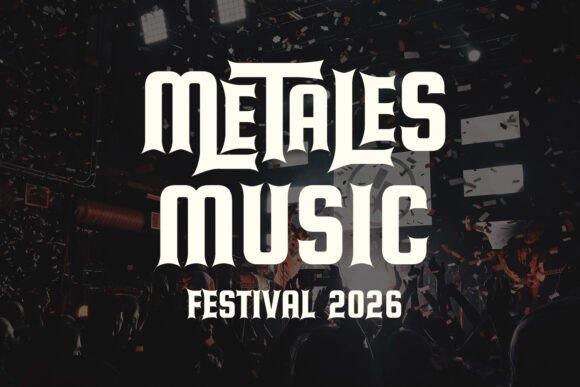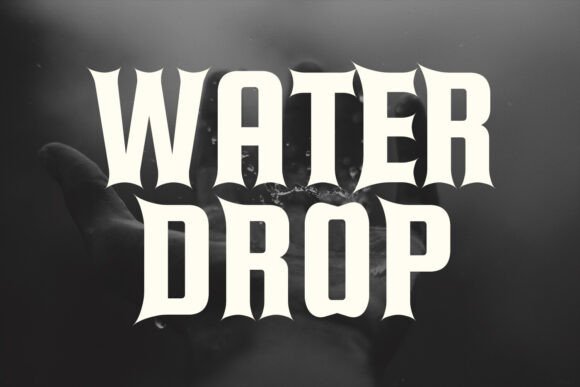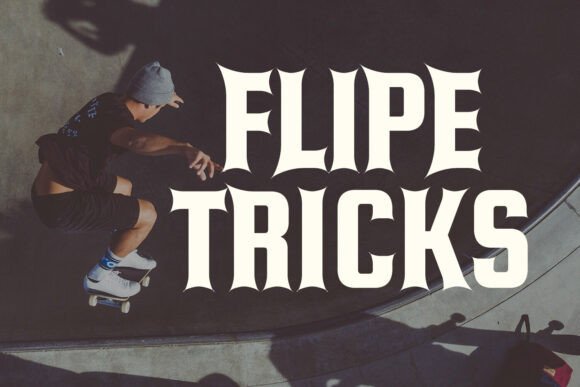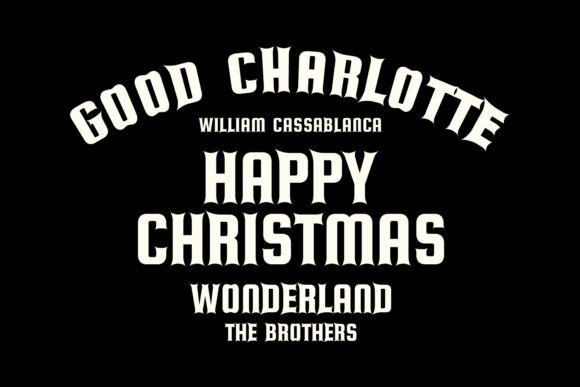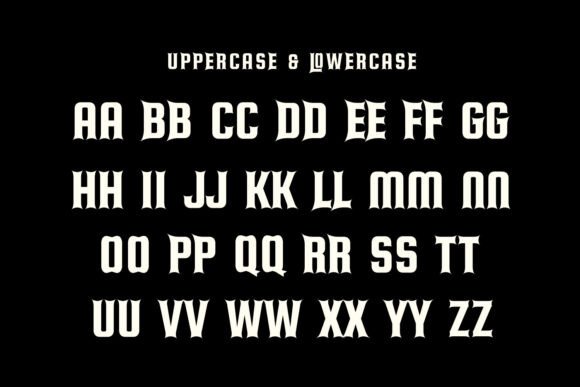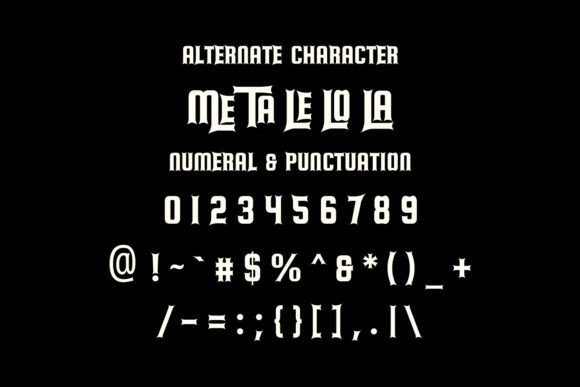
Unleash Your Creativity with Devile Phonk Font: The Ultimate Display Font for Bold Designs
Are you a designer or crafter looking for a font that can add a touch of edginess to your projects? Look no further than Devile Phonk Font, a bold and eye-catching display font that’s perfect for creating striking logos, posters, and badges. With its strong, rugged style, Devile Phonk is sure to make your designs stand out from the crowd.
What is Devile Phonk Font?
Devile Phonk Font is a display font designed specifically for creating bold, attention-grabbing designs. Its unique, edgy style is perfect for designers who want to add a touch of attitude to their projects. Whether you’re creating a logo, poster, or badge, Devile Phonk is the perfect choice for anyone looking to make a statement.
Key Features of Devile Phonk Font
- Bold and Eye-Catching: Devile Phonk Font is designed to grab attention. Its bold, rugged style is perfect for creating striking designs that stand out.
- Strong and Edgy: With its strong, edgy style, Devile Phonk Font is perfect for designers who want to add a touch of attitude to their projects.
- Perfect for Badges: Devile Phonk Font is specifically designed for creating badges, making it the perfect choice for designers who want to create cool, powerful badges.
- Versatile: Devile Phonk Font can be used for a variety of design projects, including logos, posters, and more.
Why Choose Devile Phonk Font?
So why choose Devile Phonk Font over other display fonts? Here are just a few reasons:
- Unique Style: Devile Phonk Font has a unique, edgy style that’s unlike any other font on the market.
- Easy to Read: Despite its bold style, Devile Phonk Font is easy to read, making it perfect for designs where you want to make a statement without sacrificing legibility.
- High-Quality: Devile Phonk Font is a high-quality font that’s designed to look great in any design project.
How to Use Devile Phonk Font
Using Devile Phonk Font is easy. Here are just a few tips for incorporating it into your design projects:
- Use it for Headings: Devile Phonk Font is perfect for headings and titles, where you want to make a bold statement.
- Pair it with Other Fonts: Devile Phonk Font can be paired with other fonts to create a unique, eye-catching design.
- Experiment with Colors: Devile Phonk Font looks great in a variety of colors, so don’t be afraid to experiment and find the perfect color for your design.
Design Tips and Inspiration
Need some inspiration for your design project? Here are a few tips and ideas to get you started:
- Keep it Simple: Don’t be afraid to keep your design simple and focus on the text. Devile Phonk Font is bold and eye-catching, so it can stand on its own.
- Add Some Texture: Adding some texture to your design can help give it depth and interest. Try pairing Devile Phonk Font with a textured background or image.
- Play with Colors: As mentioned earlier, Devile Phonk Font looks great in a variety of colors. Try experimenting with different colors and color combinations to find the perfect look for your design.
Devile Phonk Font is a bold and eye-catching display font that’s perfect for designers and crafters who want to add a touch of edginess to their projects. With its strong, rugged style and versatility, Devile Phonk Font is the perfect choice for creating striking logos, posters, and badges. So why wait? Download Devile Phonk Font today and start creating bold, attention-grabbing designs that stand out from the crowd!